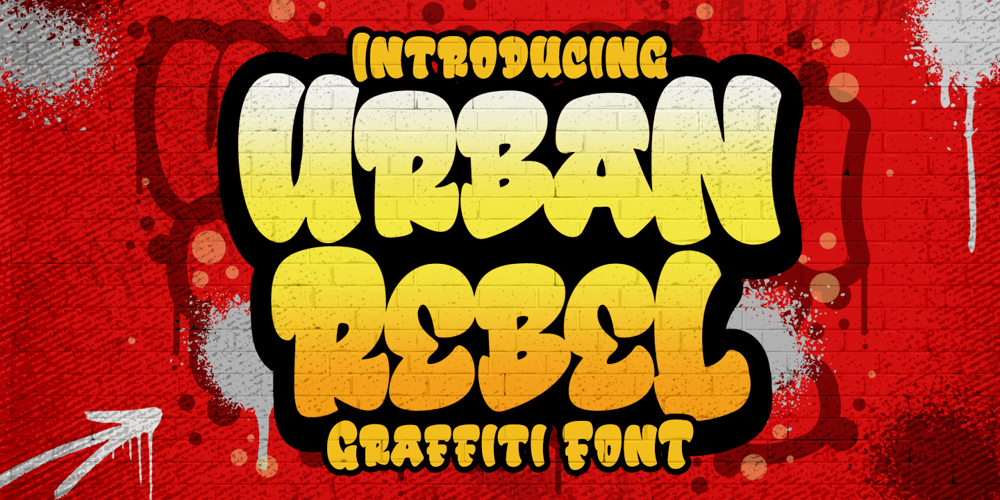
Urban Rebel Font Family was designed by Bangkit Tri Setiadi and published by Blankids. Urban Rebel contains 2 styles and family package options. Introducing of our new product the name is Urban Rebel Graffiti Font. Urban Rebel inspired by graffiti style with a fun theme very good for graffity poster, Hip Hop music, kids poster, flyer, childrenbook, cartoon, comic etcFEATURES : Uppercase Lowercase Number Punctuation Multilingual PUA Encode Opentype